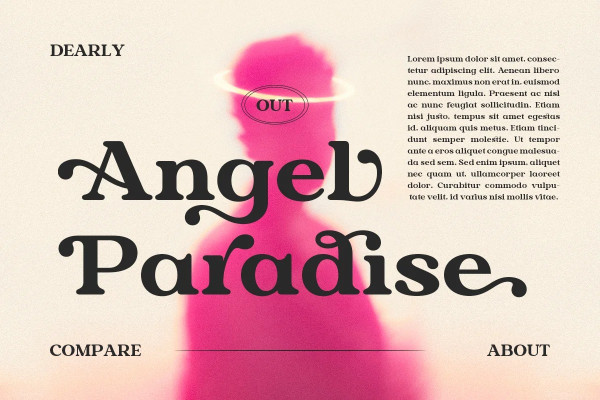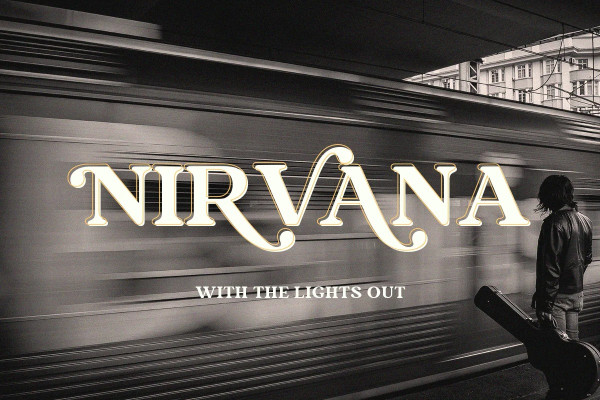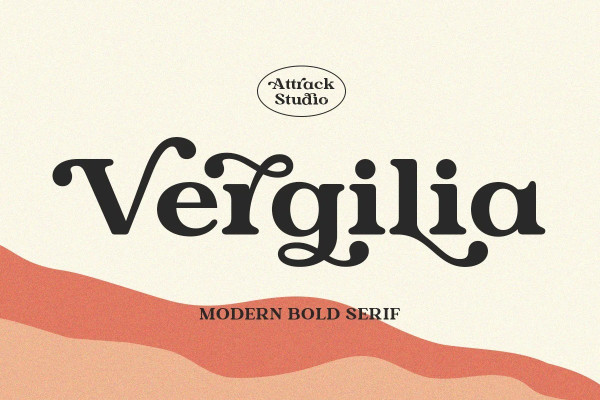
Vergilia Font
Vergilia Font – Modern Bold Serif Font is a stylish font It has a modern and retro look that is easy to read. Vergilia also comes with an outline style to help with your designs. Great for creating logos, quotes, posts, branding projects, magazine imagery, wedding invitations, even long text and much more.